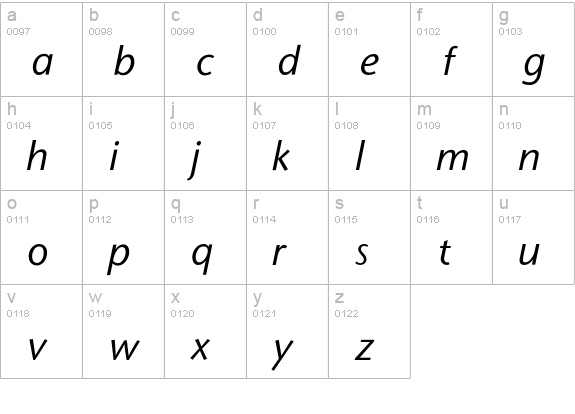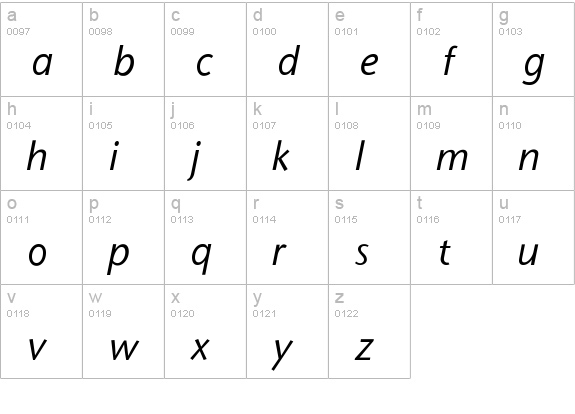
StoneSansMediumItalic Font Details
StoneSansMediumItalic font is a stylish and elegant typeface that adds a touch of sophistication to any design. Its medium weight and italic style make it perfect for creating eye-catching headings, titles, and logos. The slanted letters of this font exude a sense of modernity and flair, making it ideal for projects that require a contemporary look. What's even better is that StoneSansMediumItalic font is completely free to download at FontsMarket.com. You can easily enhance your designs with this versatile typeface without having to worry about any costs. Whether you're working on a graphic design project, website, or branding materials, StoneSansMediumItalic font is a great choice to elevate your work to the next level. Download it now and bring a touch of sophistication to your designs!